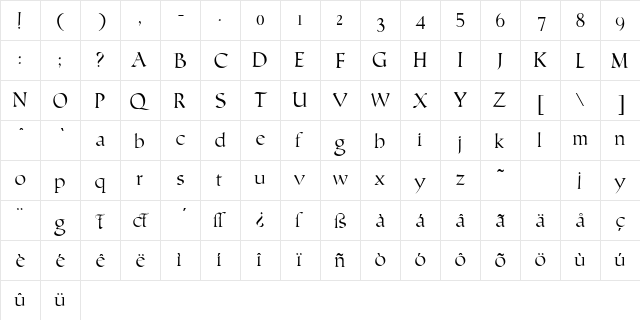
Humanistic Regular
Design Context for Humanistic Typeface
Humanistic takes a measured approach to typography — its balanced proportions and neutral character make it a reliable workhorse for both digital and print work.